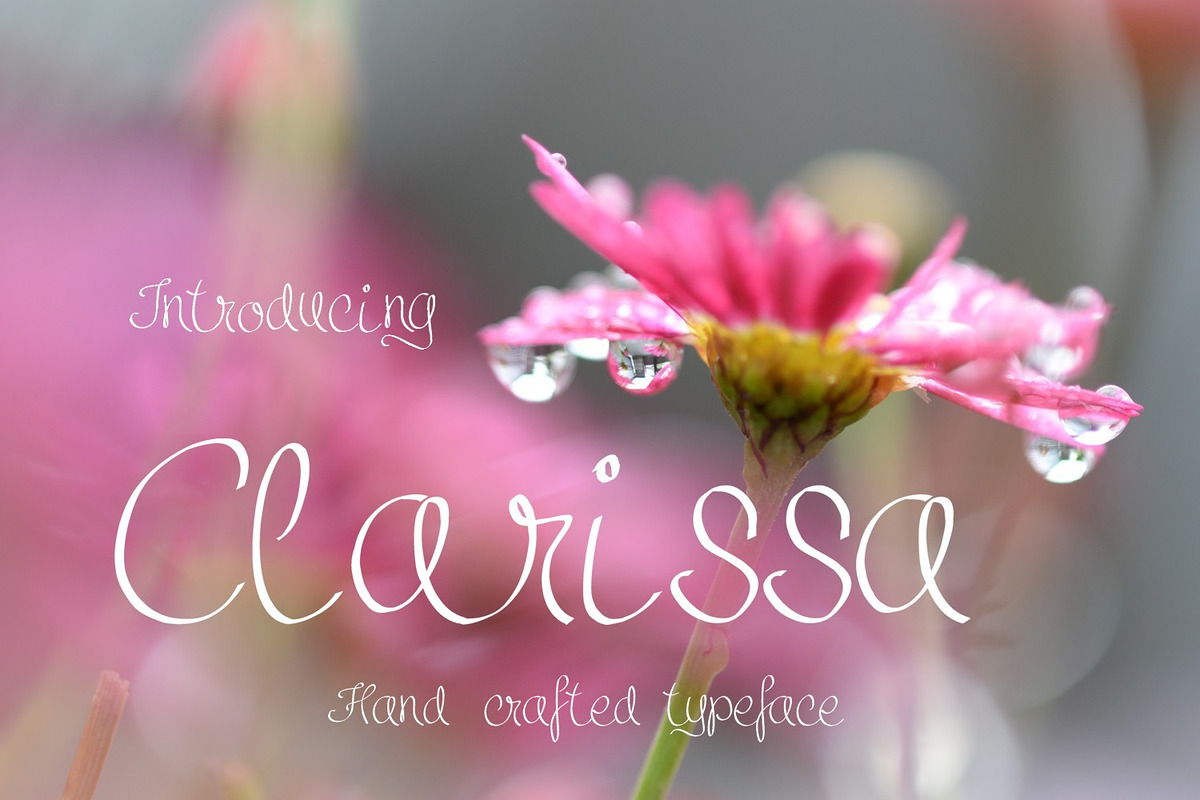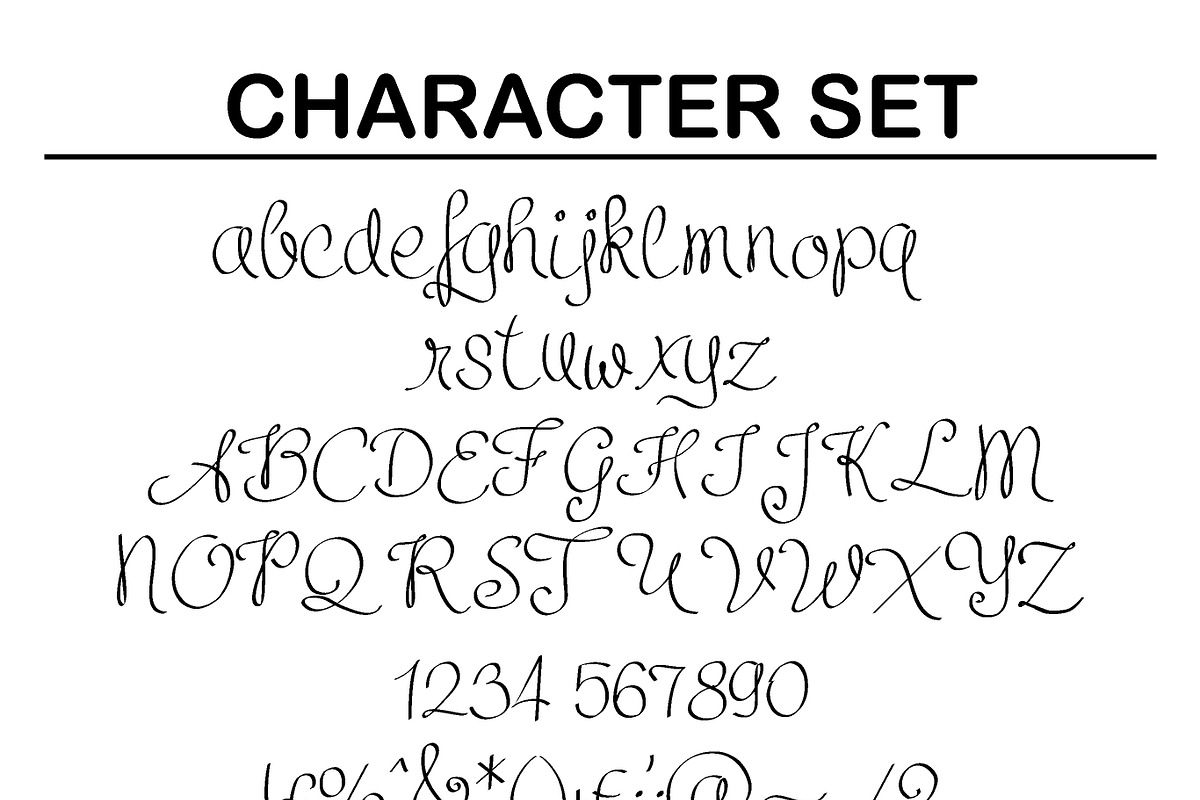
Clarissa Font
Introducing Clarissa hand crafted script font.
Clarissa is great for invitations, titling, signage, logo, flyers or t-shirts design, headlines, and more!
Clarissa Font by Digital Typeface Studio fits naturally into Branding, posters, packaging, typography.